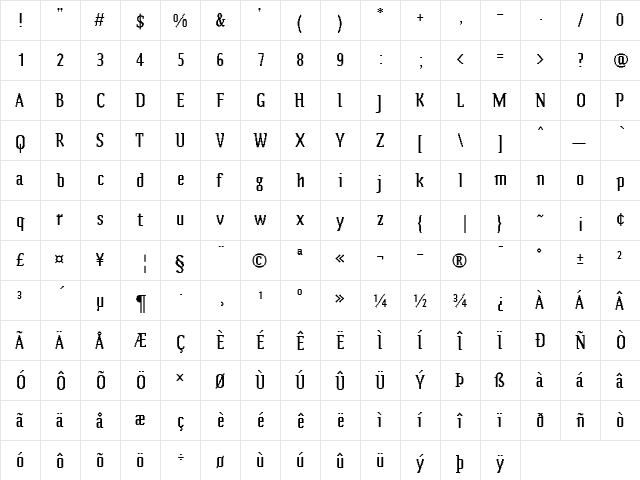
Zeitgeist MT Regular
Design Context for Zeitgeist MT Typeface
Zeitgeist MT offers clean, dependable letterforms without strong stylistic allegiance, making it a practical choice for designers who need flexibility.
Pro Tip: Use Zeitgeist MT in both headline and body roles to test its range before committing to a single application.